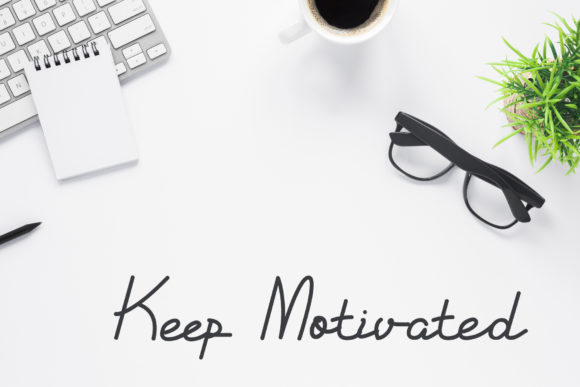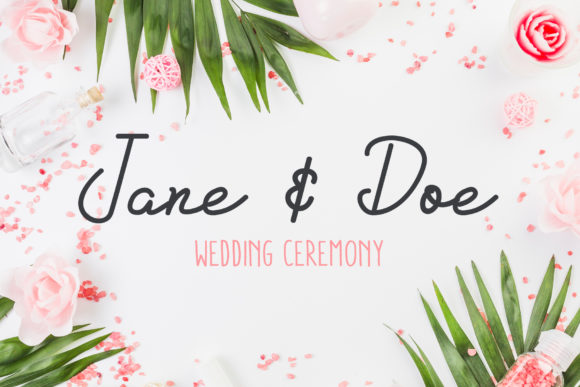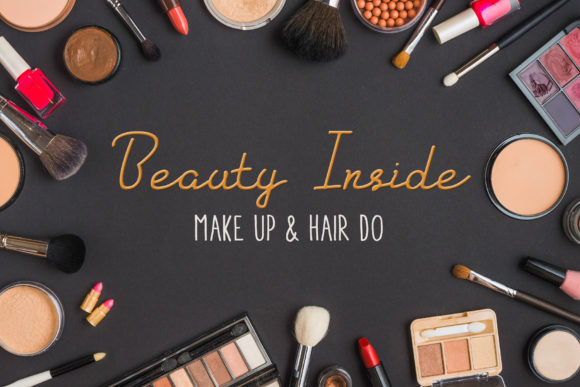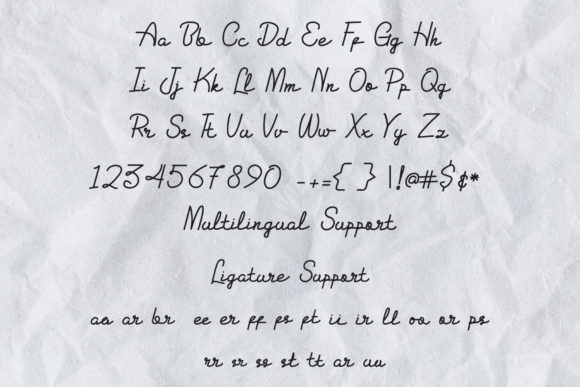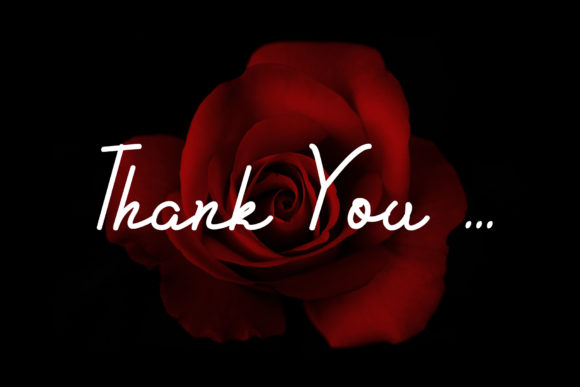
Introduction to Papertua Font Font
Fonts play a crucial role in design, and the Papertua Font font is a typeface that brings both character and versatility to any project. Whether you’re working on a branding project, a website, or a print design, the Papertua Font font offers a unique style that can elevate your work.
The Papertua is a lovely signature font.
It has an amazing handwritten style with a perfect readability The Papertua is great for adding an elegant and personal touch to your luxurious designs.
Key Features of Papertua Font Font
Why Choose Papertua Font Font?
The Papertua Font font is more than just a typeface – it’s a design tool that helps you communicate your message with style and clarity. Its unique character set and versatile design make it suitable for a wide range of applications, from elegant invitations to bold headlines.
With its carefully crafted letterforms and balanced proportions, the Papertua Font font ensures readability and visual appeal across all mediums.
What makes Papertua Font font special?
The Papertua Font font stands out with its unique design, exceptional readability, and versatility across various design applications.